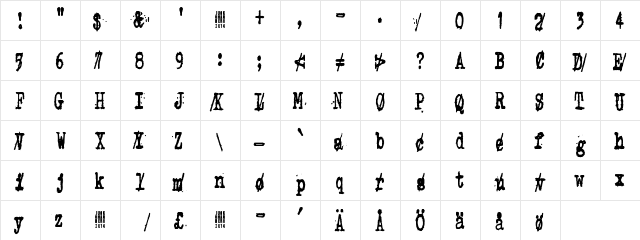
Zombie Queen Zlash Regular
Design Context for Zombie Queen Zlash Typeface
Zombie Queen Zlash is a composed and adaptable typeface that performs quietly and consistently across a wide range of design contexts.